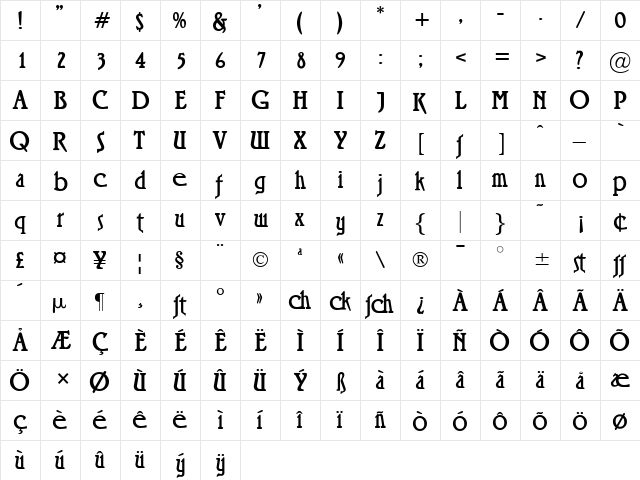
Rossano Regular Font Preview
Rossano Regular
Design Context for Rossano Typeface
Rossano is a composed and adaptable typeface that performs quietly and consistently across a wide range of design contexts.